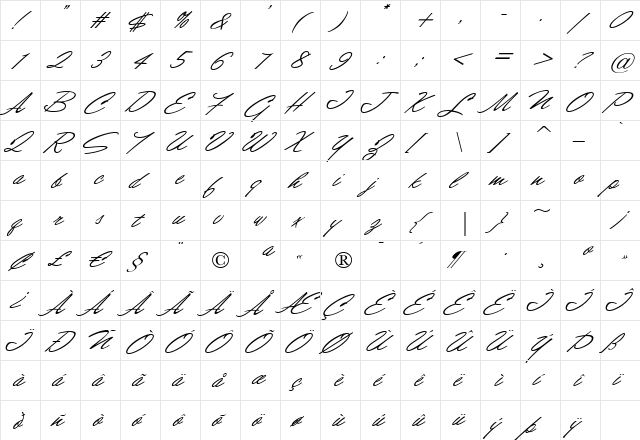
ShirleyScriptJF Regular
Design Context for ShirleyScriptJF Typeface
ShirleyScriptJF flows with the natural rhythm of handwritten lettering, making it ideal for designs that call for warmth and personal expression.
Font Pairing: Combine ShirleyScriptJF with a simple geometric sans for maximum contrast — the tension between flowing curves and clean structure is a classic typographic pairing.
Pro Tip: Pair ShirleyScriptJF with a clean sans-serif for supporting text. The contrast between fluid script and geometric structure creates an elegant typographic hierarchy.